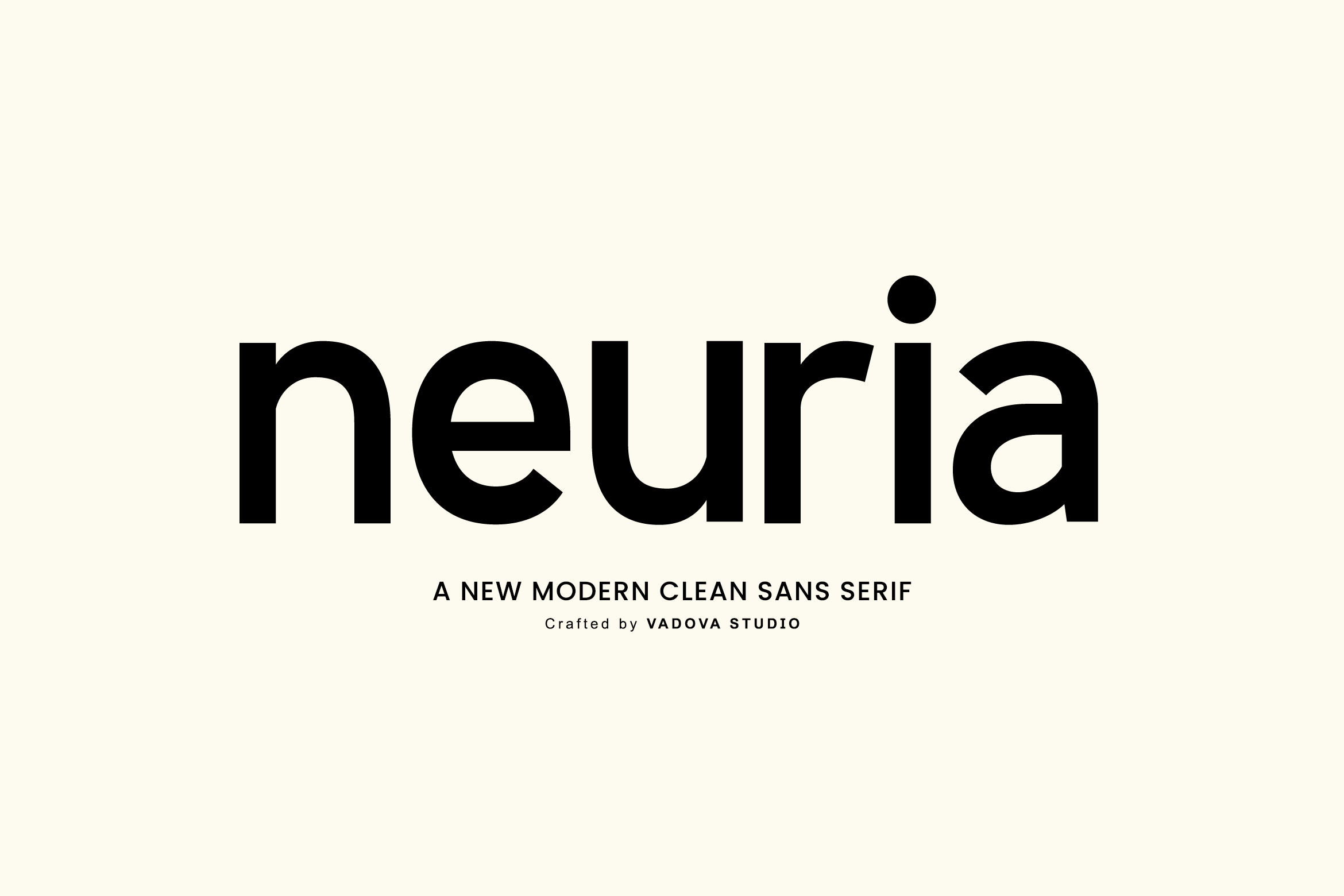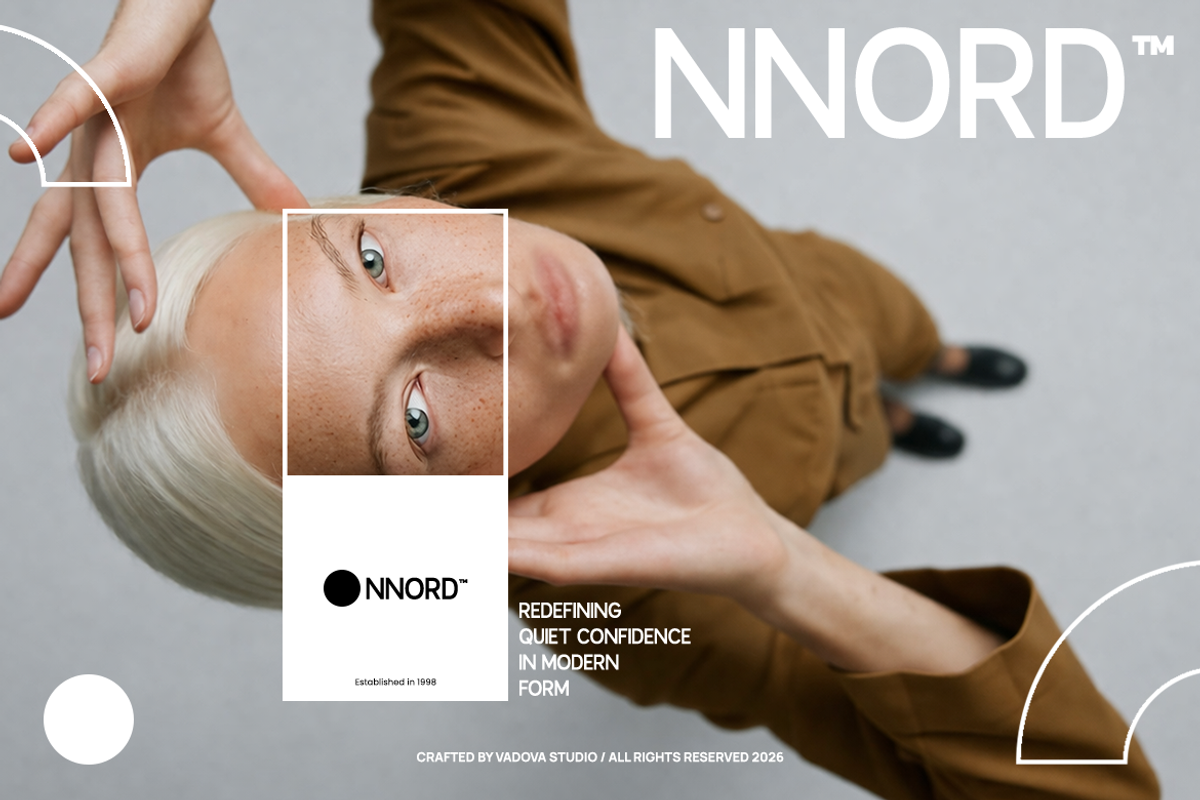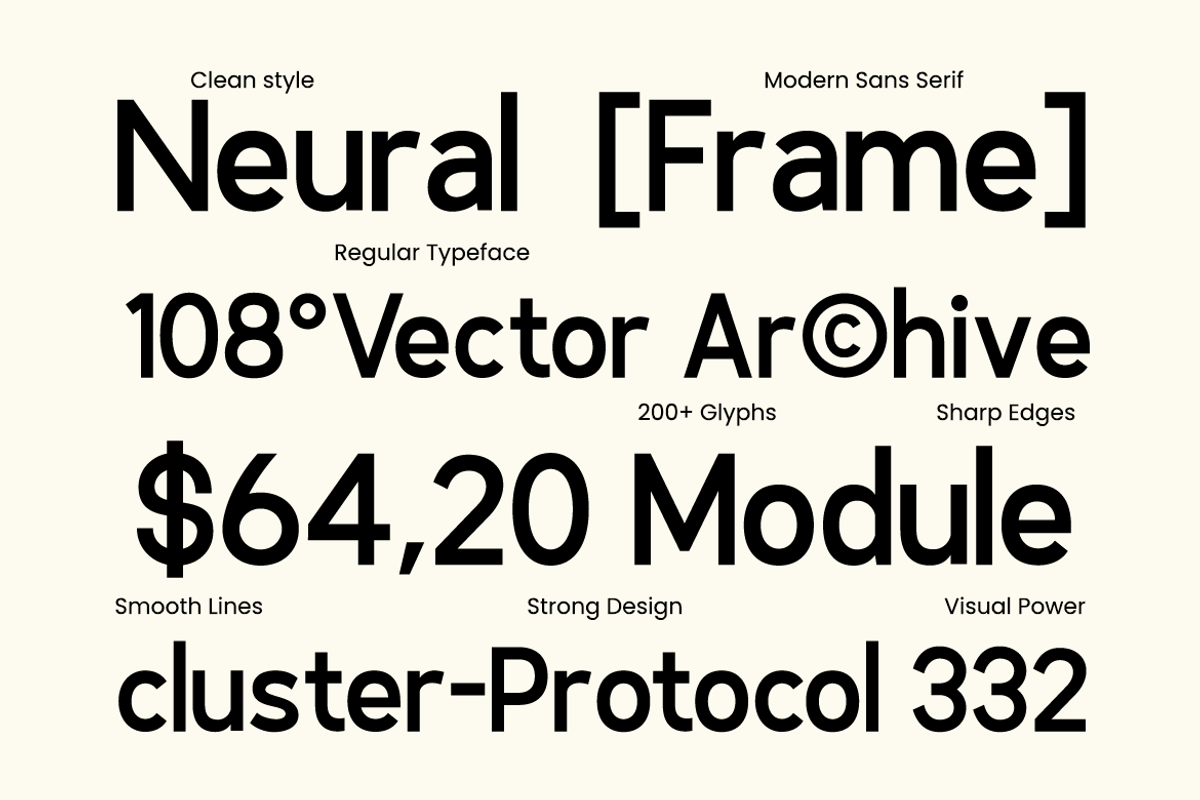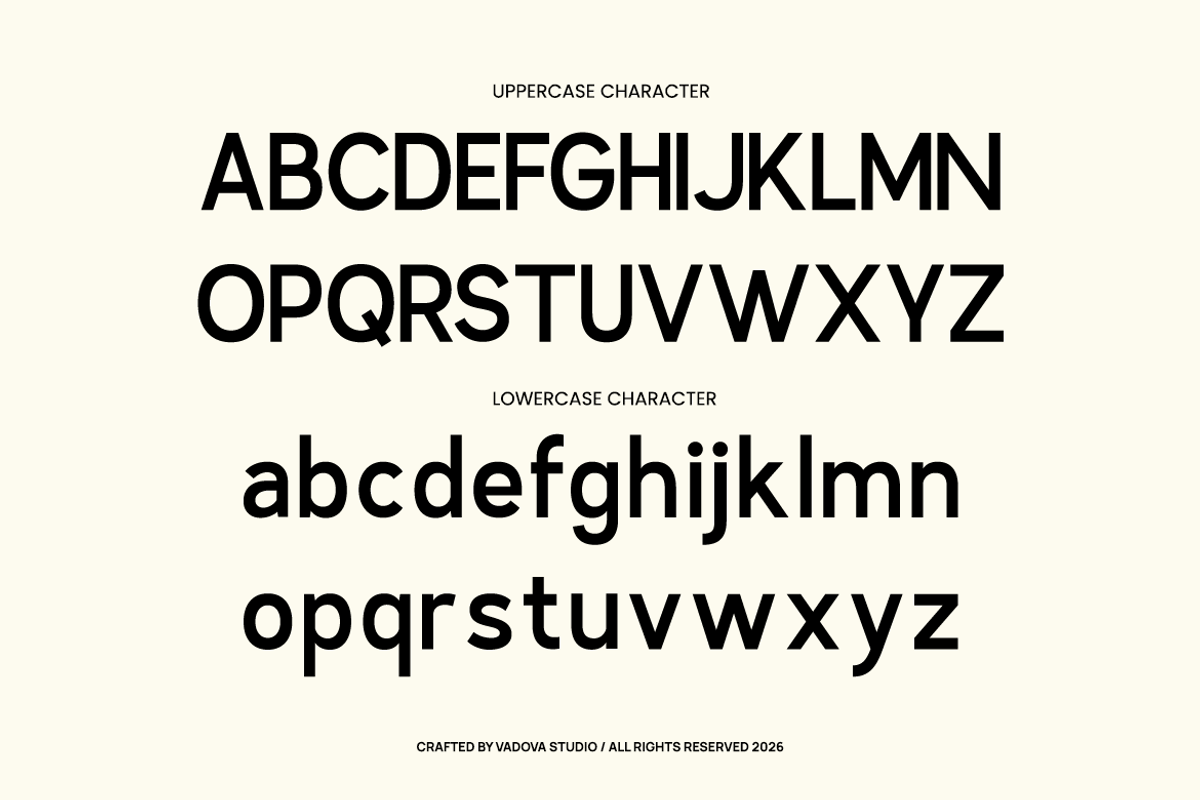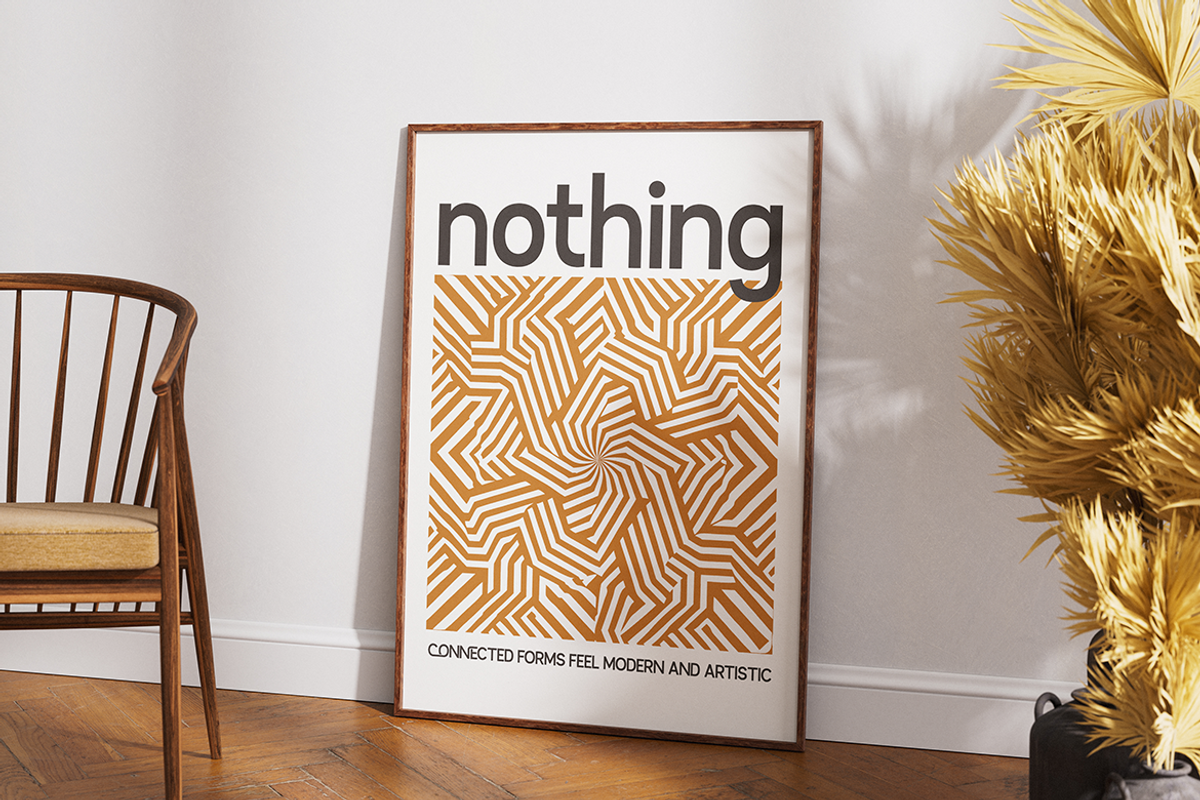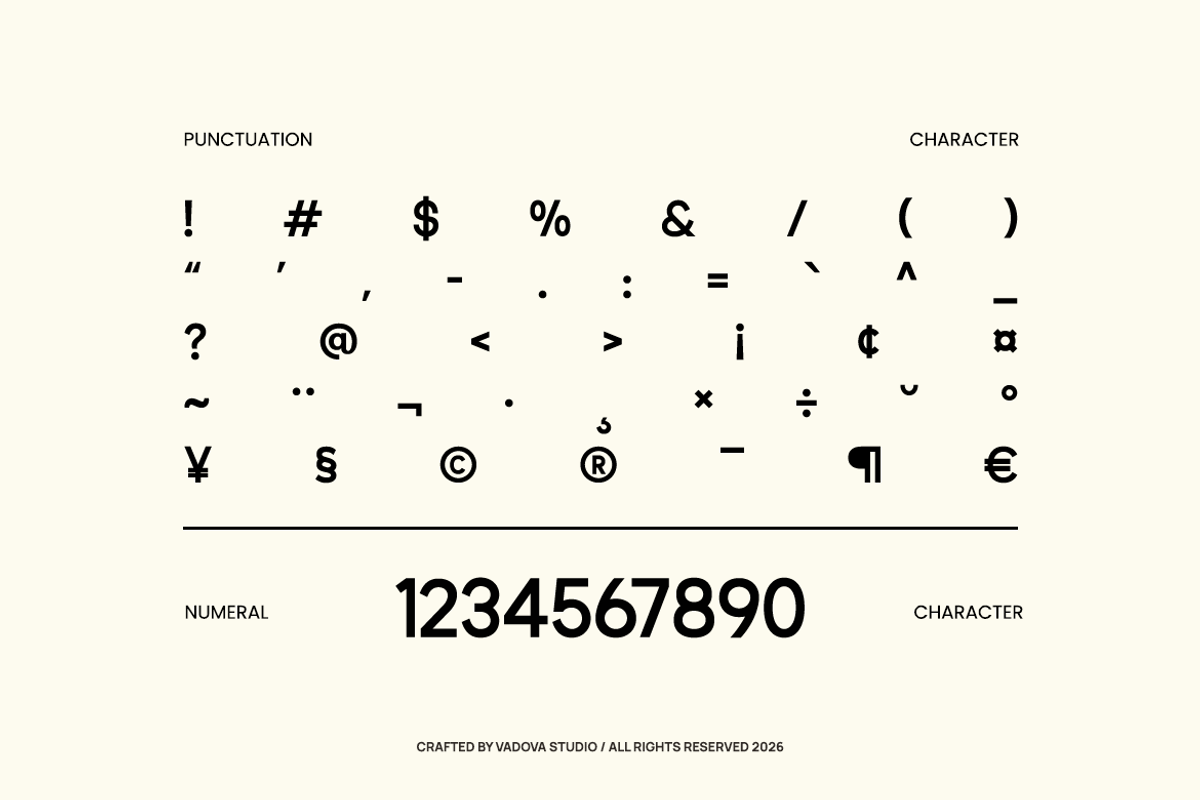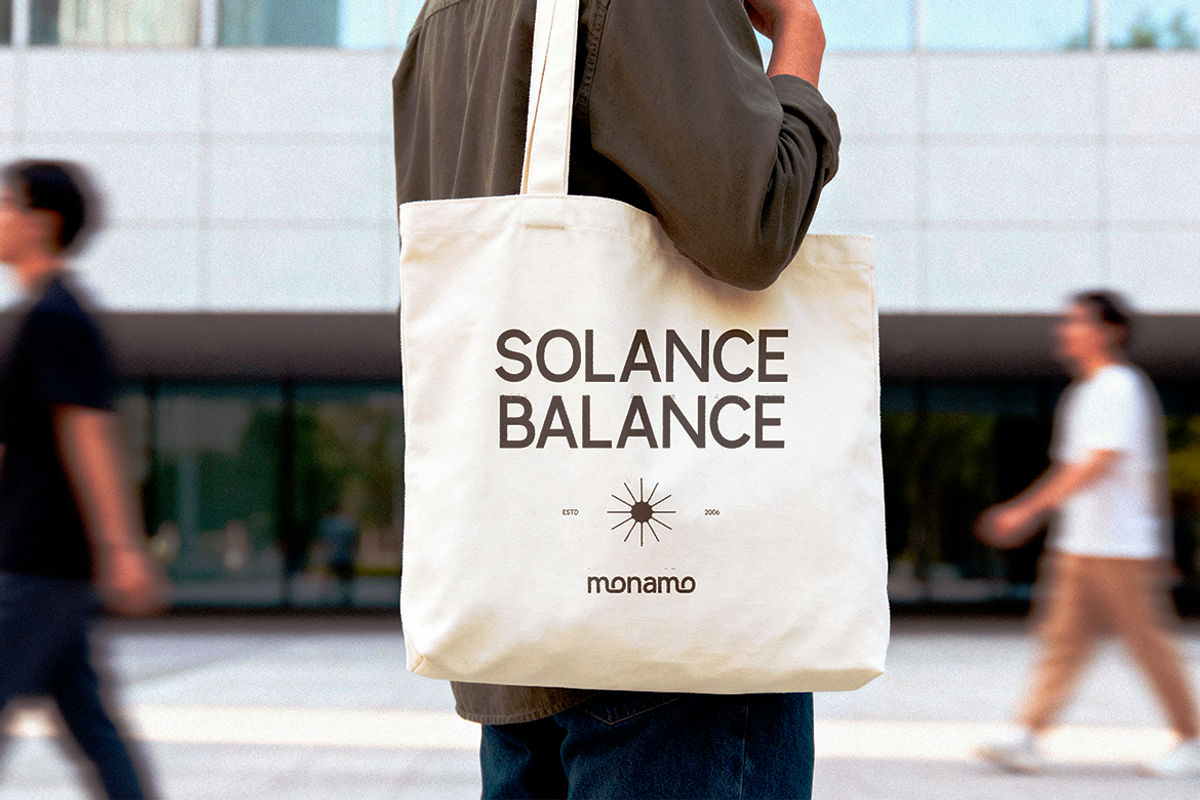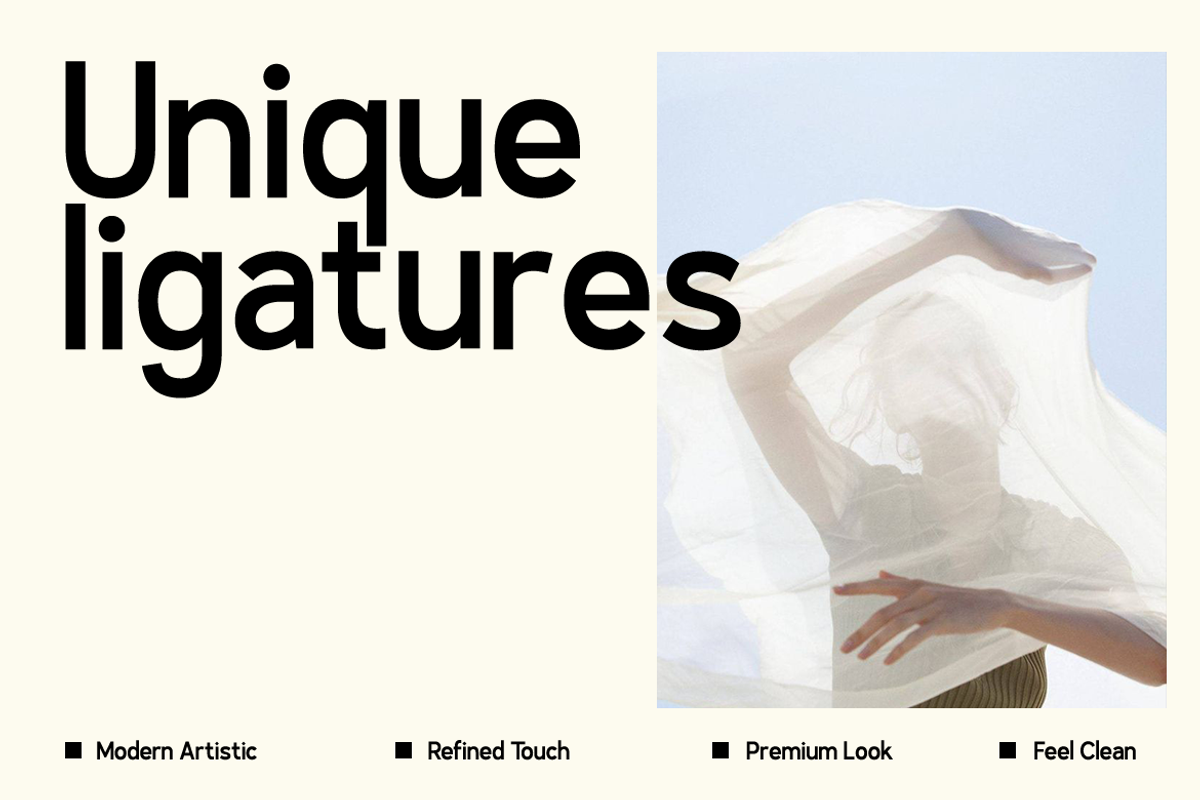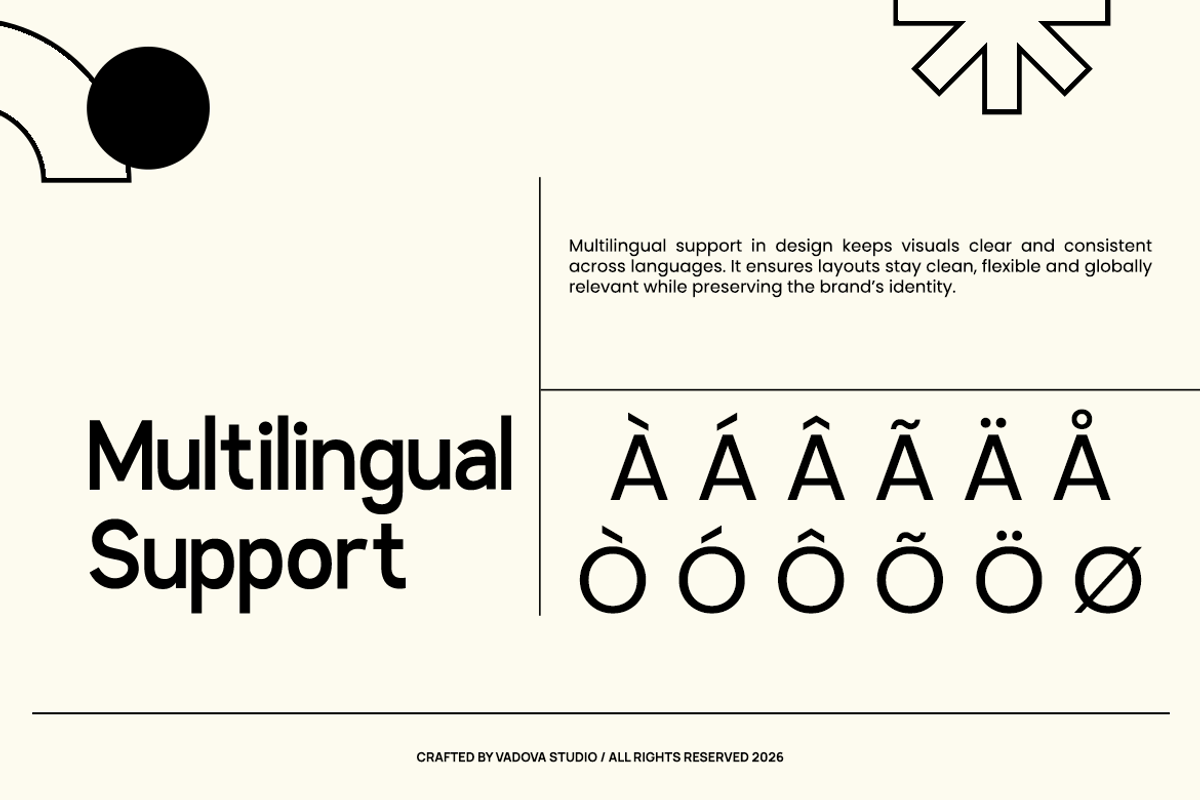
Neuria Modern Clean Sans Serif Font
Neuria is a modern clean sans serif typeface featuring bold geometric forms, smooth curves, and highly legible letter structures. The font includes full uppercase and lowercase characters, numerals, and essential punctuation, designed with balanced spacing and consistent stroke weight for a refined minimalist look.
This font is highly relevant for modern branding systems, editorial layouts, digital interfaces, and marketing visuals where clarity and professionalism are essential. It works effectively for logos, headlines, posters, websites, and corporate materials, especially in projects that require a clean, minimalist, and contemporary visual direction.
- Bold geometric sans structure with clean and confident letterforms
- Smooth rounded curves and soft terminals for a friendly modern feel
- Strong stroke consistency creating a balanced and stable appearance
- Minimalist construction with high clarity and legibility
- Open counters and wide proportions enhancing readability at large sizes
- Brand identity systems with a clean, modern, and professional tone
- UI/UX design for apps, websites, and digital platforms
- Editorial layouts including magazines and minimalist publications
- Product packaging and labels with a sleek contemporary style
- Social media graphics and marketing visuals with clear typography